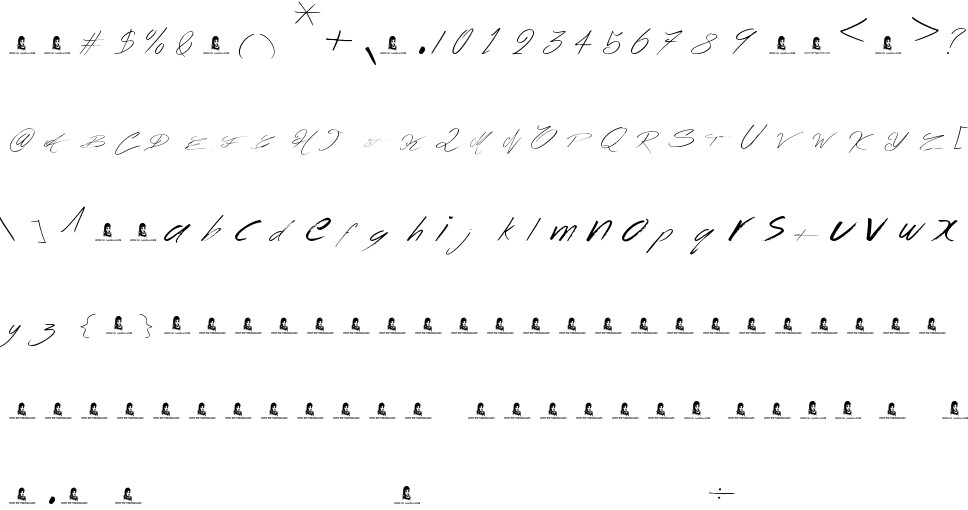
Across The Road Font . Web across the road font is a autograph font and was created on feb 19, 2014. Uploaded by huel.janice π (1 style) report a violation add to list.
Web download and use across the road, a free font inspired by street signs and urban style. Across the road font β created in 2014 by jonathan s. Download free for desktop & webfont.